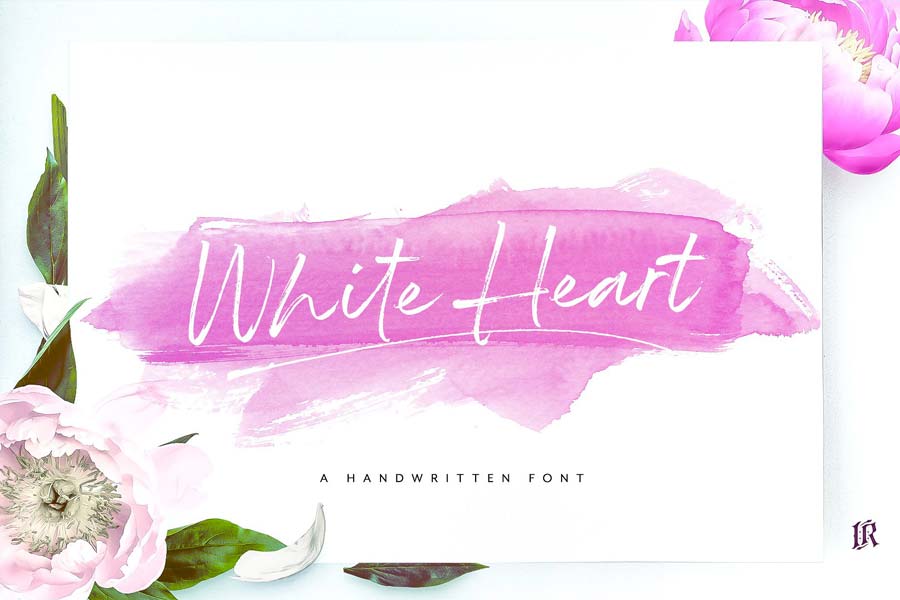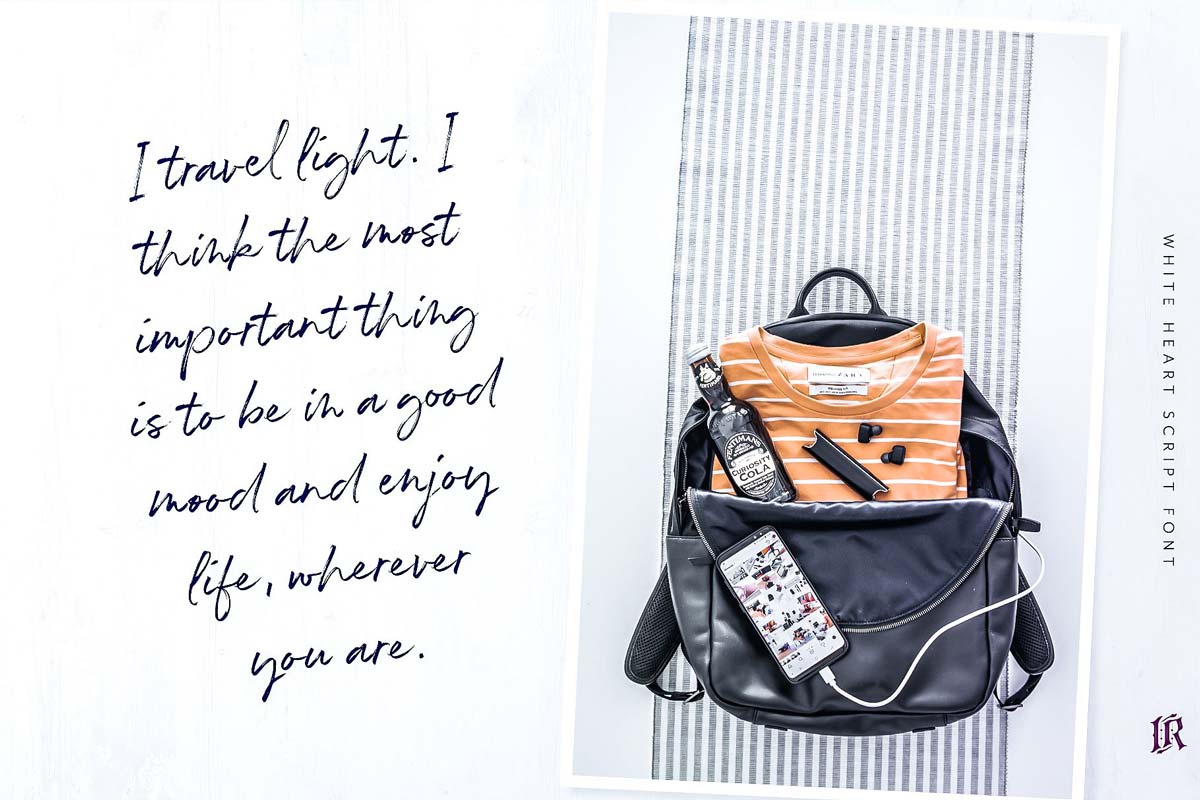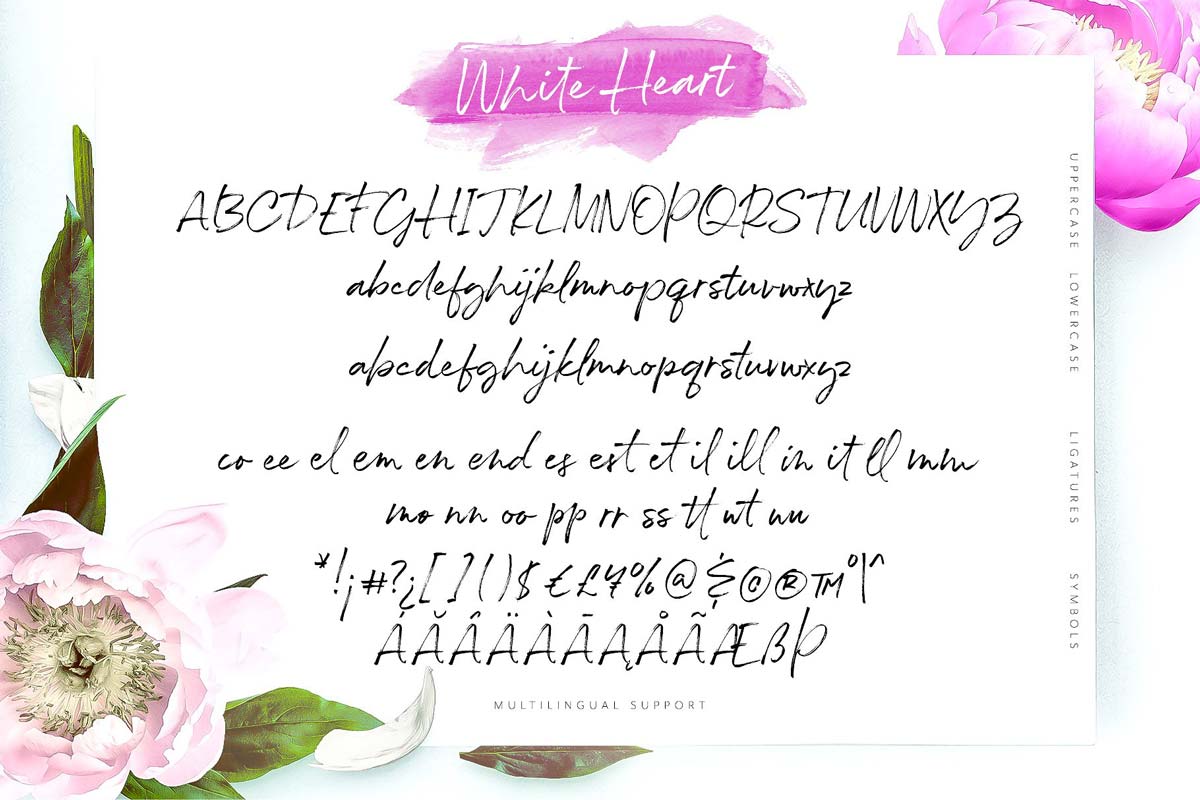
White Heart is a hand brushed font with multilingual support. It’s a casual, fast handwriting style font but yet without losing the readability.
White Heart is ideal for many design applications including t-shirts, posters, invitation cards, digital medias, banners and more. This font also comes with extended ligatures, alternates and symbols.